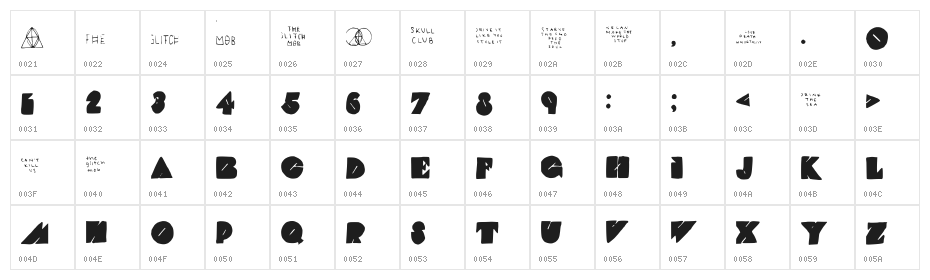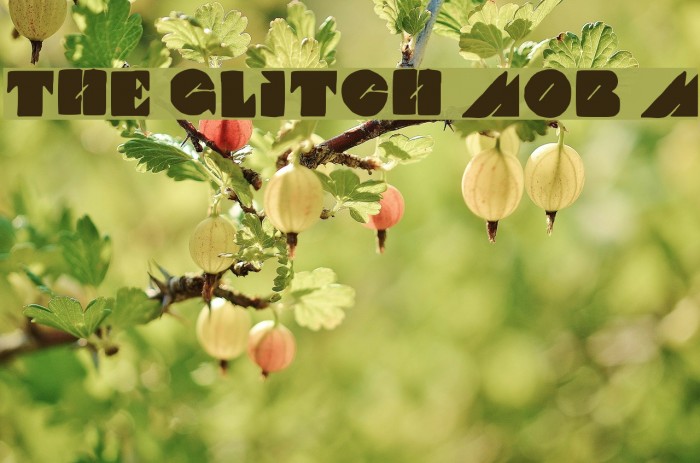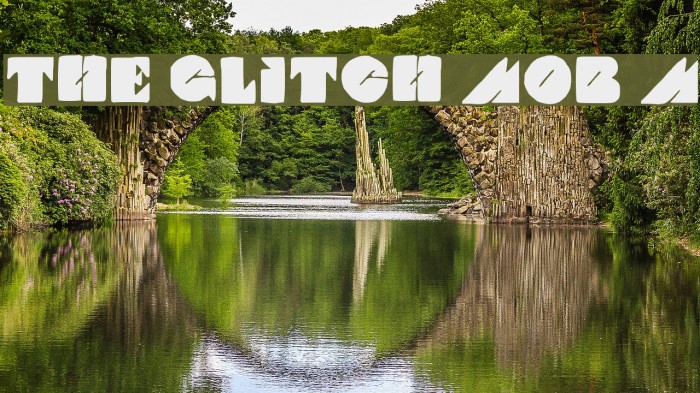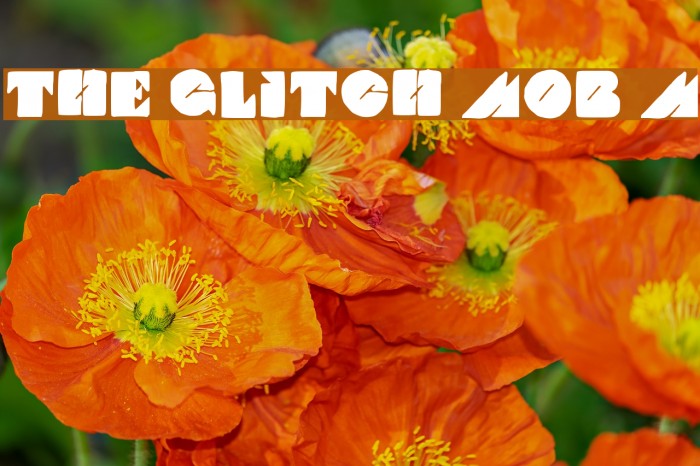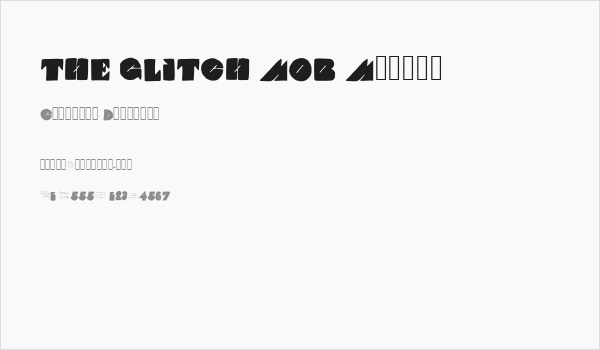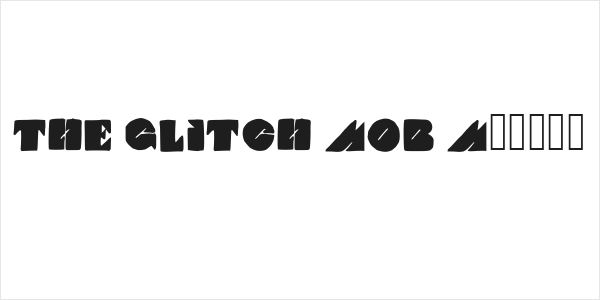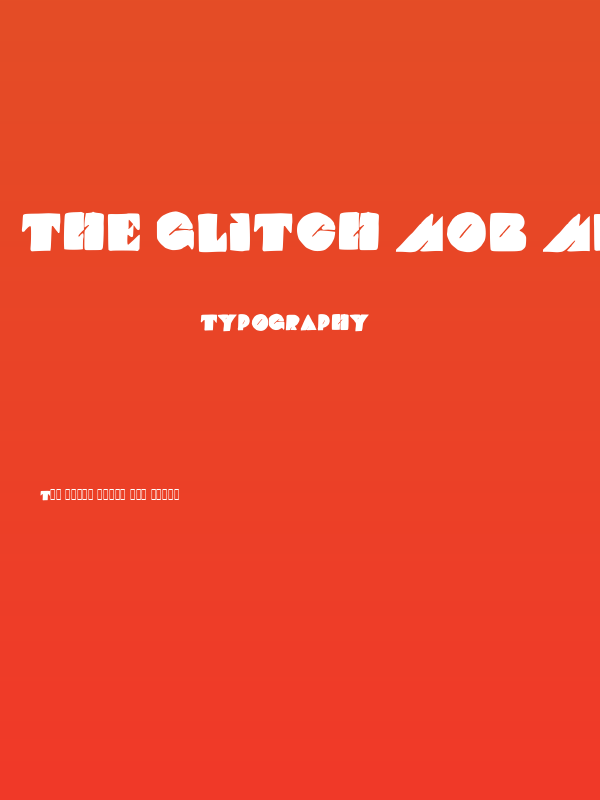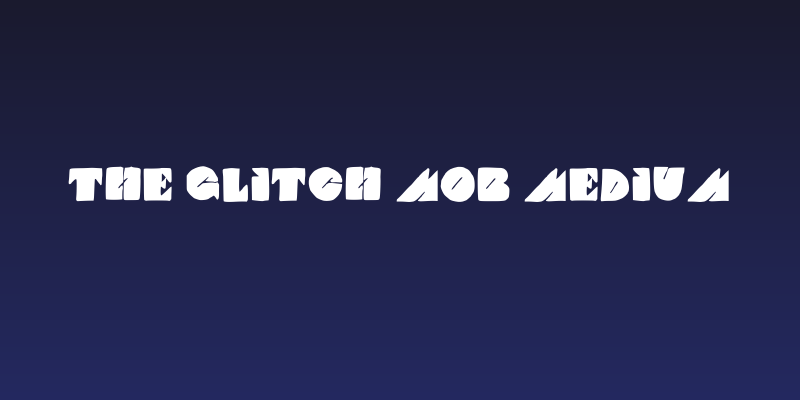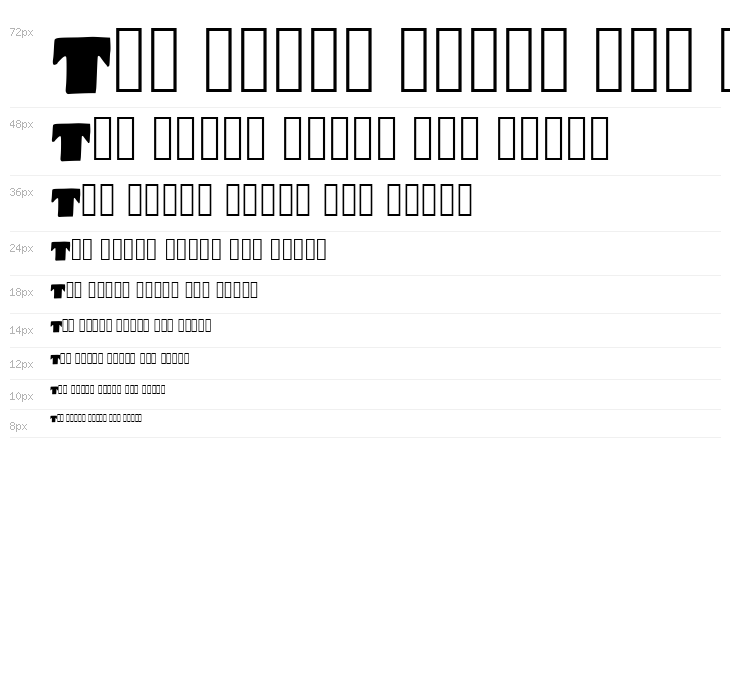
THE GLITCH MOB Medium Font
THE GLITCH MOB Medium Description
This font features a bold and edgy design with sharp, angular cuts and a geometric style. The characters are heavily stylized, with a distinct futuristic and industrial feel. Each letter is crafted with unique shapes that give the font a dynamic and energetic appearance. The numbers and special characters follow the same bold and distinctive style, making the font suitable for projects that require a strong visual impact. The overall design is modern and unconventional, ideal for creative and artistic applications.